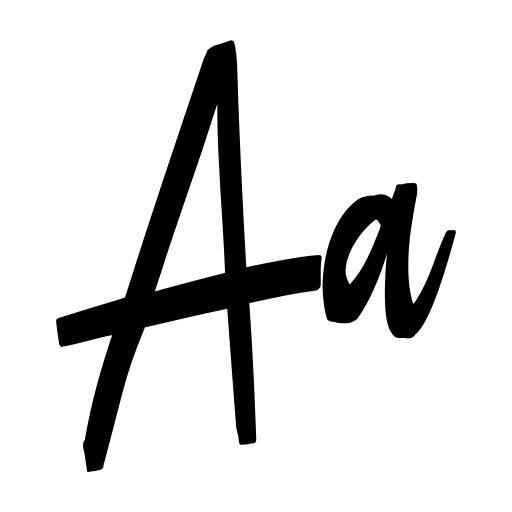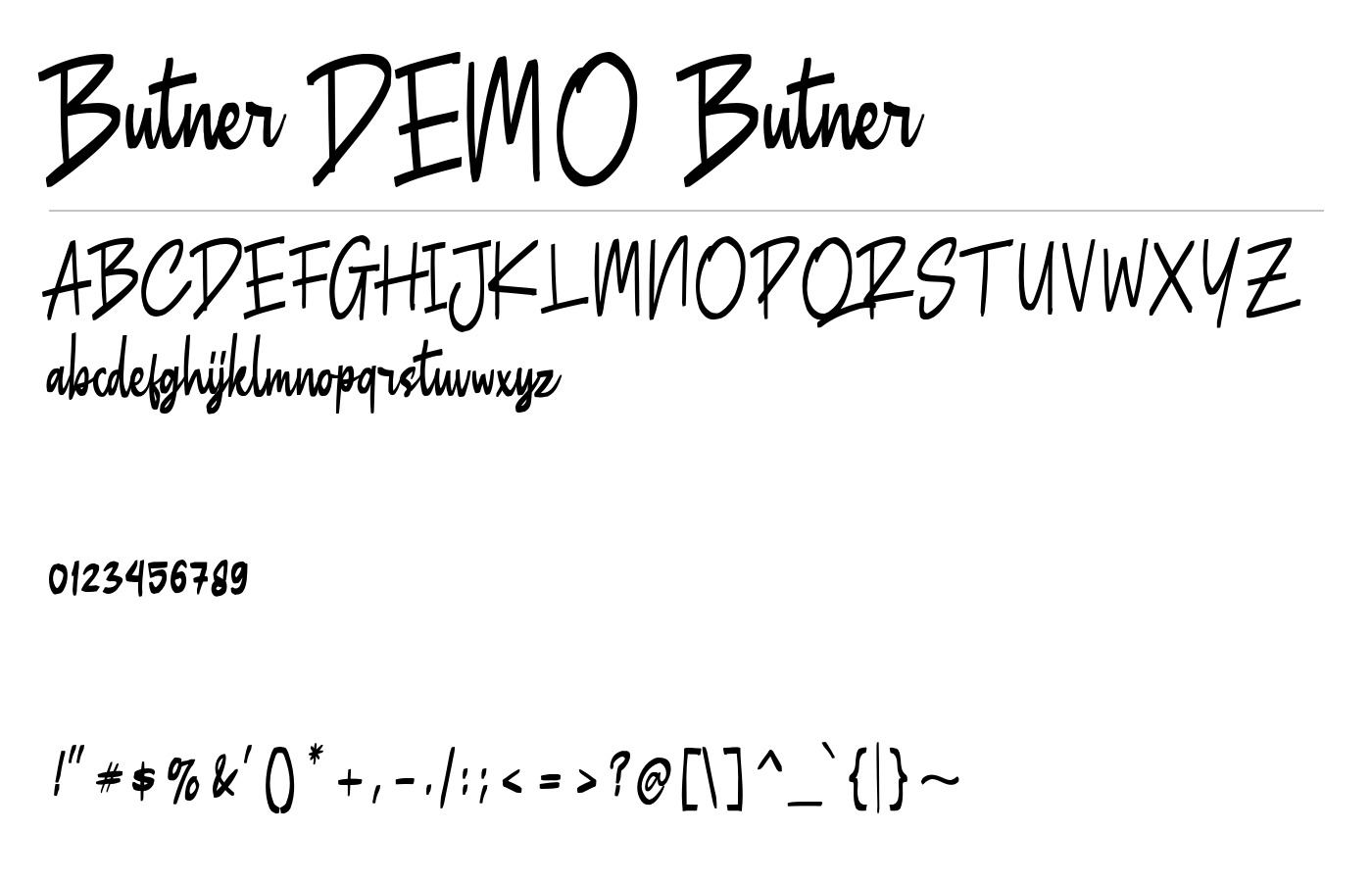
Butner DEMO is a lively and casual handwritten font that combines playful energy with clear readability. Its slightly irregular strokes and varying thicknesses give it a natural, informal feel, making it perfect for creative projects, personal branding, and friendly communication. This font shines in designs that seek a warm, approachable touch, such as invitations, posters, and social media graphics.
Butner DEMO Font
About Butner DEMO Font
| Font family | Butner DEMO Font |
| Languages supported | Latin, Symbols, Hangul |
| Designer | Teuku Deki Firnanda |